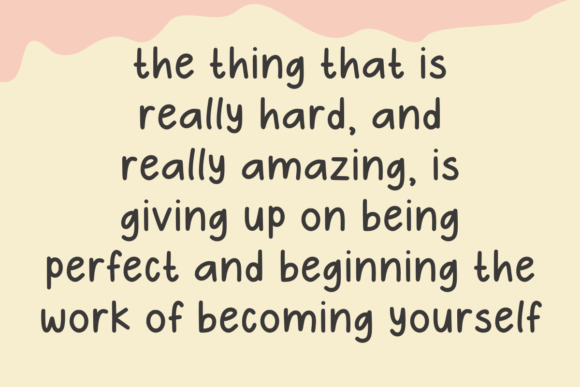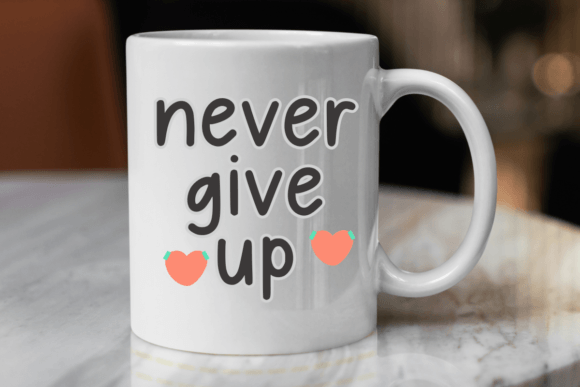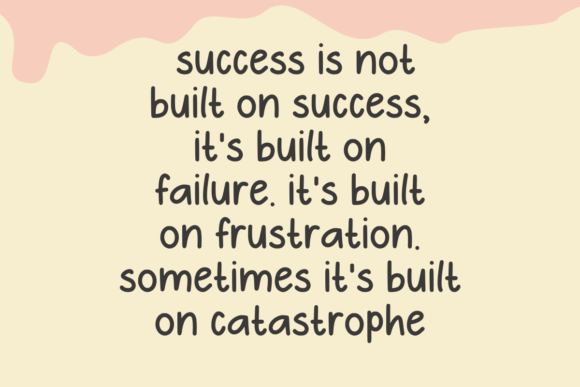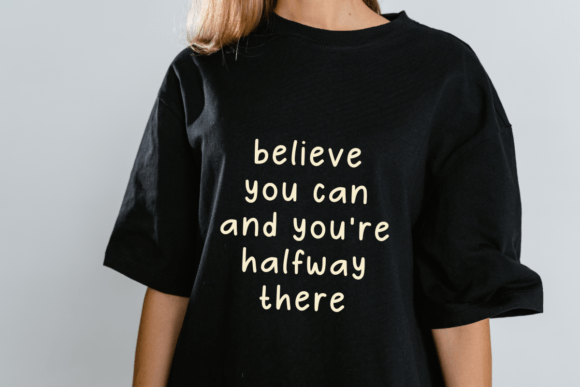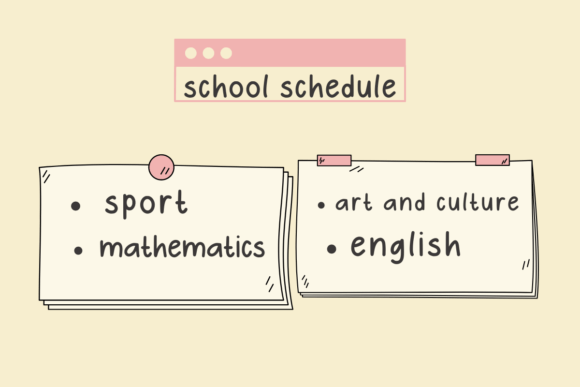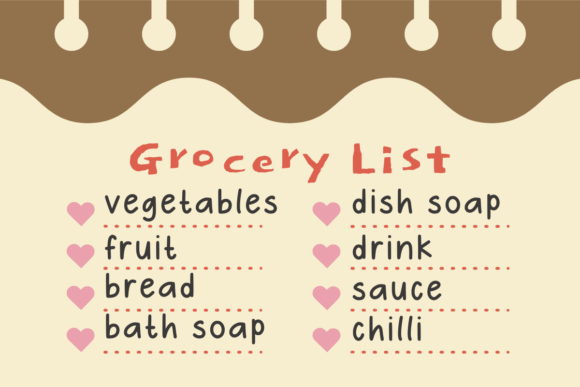
Introducing Fight Brain Font: The Perfect Addition to Your Design Arsenal
Are you tired of using the same old fonts in your designs? Look no further than Fight Brain Font, a cute and fun sans serif font style that’s sure to add a touch of whimsy to your projects. With its charming, strange, and quirky vibe, Fight Brain Font is perfect for designers and crafters who want to create something truly unique and eye-catching.
What Makes Fight Brain Font So Special?
Fight Brain Font is a sans serif font, which means it doesn’t have the small lines or flourishes that you typically find at the ends of letters. This gives it a clean and modern look that’s perfect for a wide range of design projects. But what really sets Fight Brain Font apart is its quirky and charming personality. The letters are slightly irregular and have a hand-drawn feel, which gives the font a friendly and approachable vibe.
Perfect for Fun and Creative Projects
Fight Brain Font is perfect for any project that requires a friendly and playful touch. Here are just a few ideas to get you started:
• Easter and Spring Decorations: Use Fight Brain Font to create adorable Easter egg designs, spring-themed posters, or cute party invitations.
• Back to School: Create fun and colorful back to school posters, stickers, or greeting cards with Fight Brain Font.
• Wedding and Party Decorations: Add a touch of whimsy to your wedding or party decorations with Fight Brain Font. Use it to create cute invitations, banners, or centerpieces.
• Fall and Halloween: Create spooky-cute designs with Fight Brain Font, including Halloween posters, invitations, or decorations.
• Christmas and Holiday Decorations: Use Fight Brain Font to create festive holiday designs, including Christmas posters, cards, or decorations.
• Blogs and Social Media Posts: Add a playful touch to your blog or social media posts with Fight Brain Font. It’s perfect for creating eye-catching headlines or graphics.
• Clothing and Kids’ Designs: Use Fight Brain Font to create cute and colorful designs for kids’ clothing, accessories, or toys.
• Greeting Cards and Stationery: Create adorable greeting cards, stickers, or stationery with Fight Brain Font.
Why Designers and Crafters Love Fight Brain Font
Designers and crafters love Fight Brain Font for many reasons. Here are just a few:
• Unique and Eye-Catching: Fight Brain Font is a one-of-a-kind font that’s sure to grab attention.
• Easy to Read: Despite its quirky personality, Fight Brain Font is easy to read and understand.
• Versatile: Fight Brain Font can be used for a wide range of design projects, from digital designs to print materials.
• Fun and Playful: Fight Brain Font adds a touch of whimsy and fun to any design project.
If you’re looking for a font that will add a touch of personality and whimsy to your design projects, look no further than Fight Brain Font. With its cute and fun sans serif style, Fight Brain Font is perfect for designers and crafters who want to create something truly unique and eye-catching. So why wait? Download Fight Brain Font today and start creating!
Whether you’re a seasoned designer or a crafter just starting out, Fight Brain Font is sure to become a favorite in your design arsenal. Its versatility, readability, and quirky personality make it the perfect addition to any design project. So go ahead, give Fight Brain Font a try, and see the difference it can make in your designs!